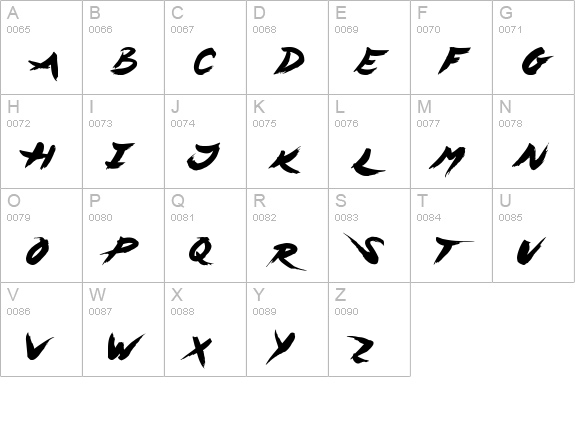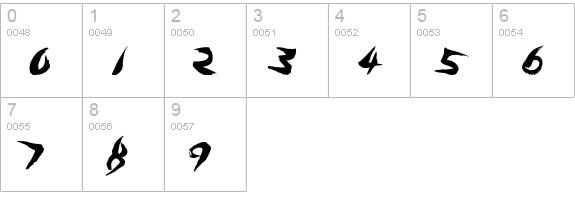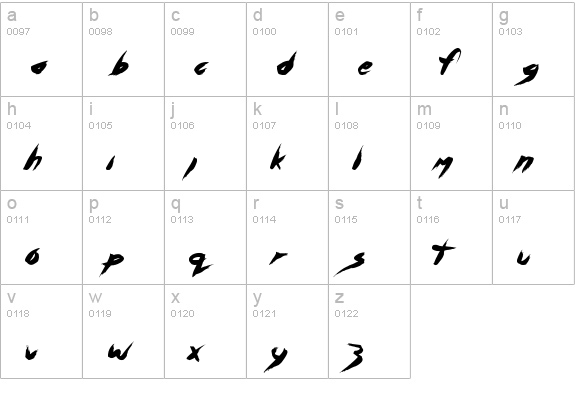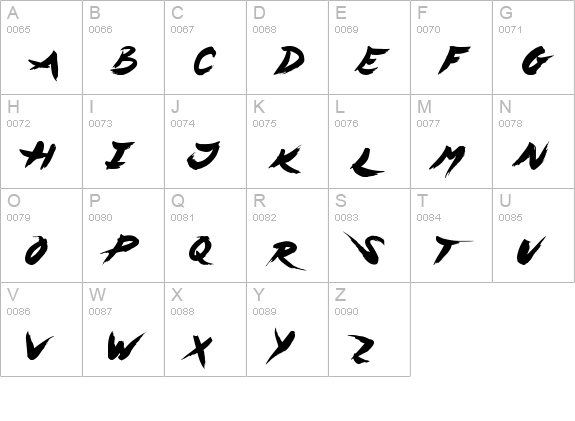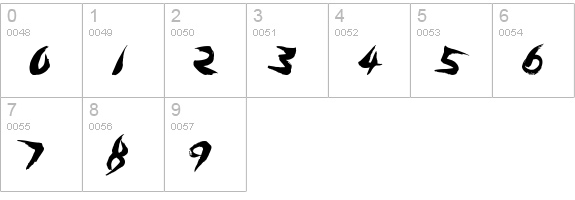
Asylum Mansion Font Details
Introducing the captivating Asylum Mansion font, a true masterpiece that combines elegance, mystery, and a touch of gothic allure. This enchanting typeface is ideal for those seeking to add a sense of sophistication and intrigue to their designs. Asylum Mansion boasts intricate letterforms that effortlessly blend classic calligraphy with a modern twist. Its carefully crafted curves and exquisite details evoke a sense of timelessness, making it perfect for a wide range of creative projects, from branding and logos to invitations, posters, and much more. With its versatile nature, Asylum Mansion allows you to create stunning designs that effortlessly capture attention and leave a lasting impact. Whether you're crafting a wedding invitation dripping with romance or designing a hauntingly beautiful book cover, this font will elevate your creations to new heights. What sets Asylum Mansion apart is not only its captivating aesthetics but also its availability as a free font. Yes, you read that right! Asylum Mansion font is freely available to download at FontsMarket.com. Now, you can enjoy the luxury of this exquisite font without breaking the bank. The creators of Asylum Mansion understand the importance of accessibility, ensuring that designers, artists, and enthusiasts alike can embrace the beauty of this font without any limitations. By offering it as a free resource, they empower creators to unleash their creativity and bring their visions to life with ease. So, don't miss out on this remarkable opportunity to enhance your designs with the mesmerizing Asylum Mansion font. Head over to FontsMarket.com today to download this remarkable typeface and embark on a journey of creativity and inspiration.